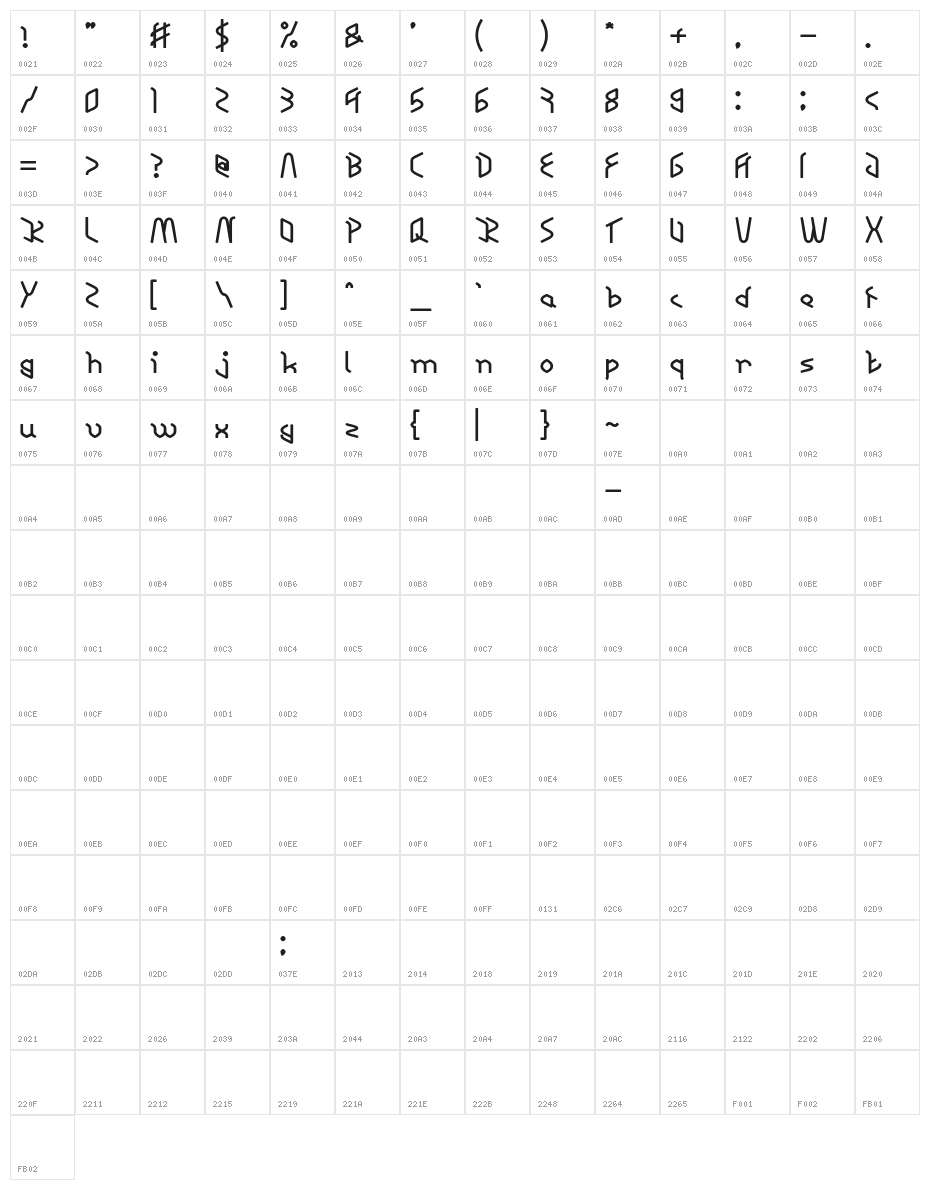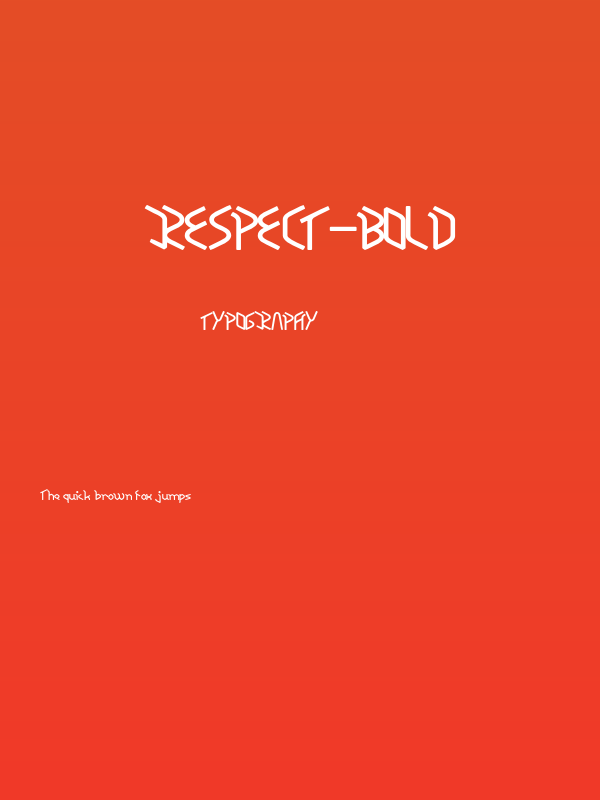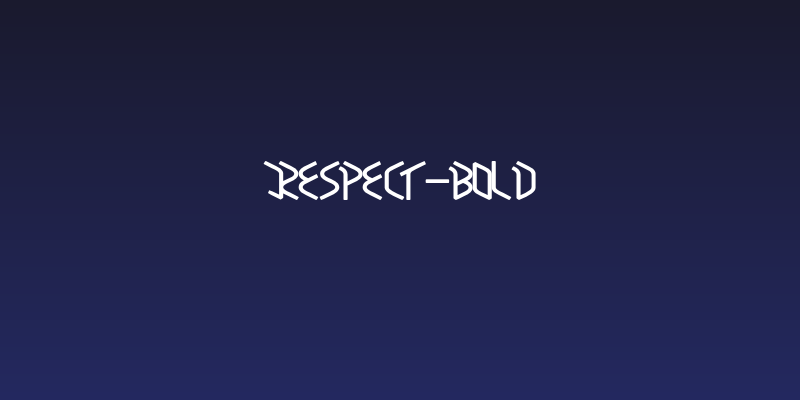
RESPECT-Bold Font
RESPECT-Bold Description
This font features a bold and geometric design with a distinctive angular style. The characters are formed with thick, consistent strokes that give it a strong and impactful appearance. The uppercase and lowercase letters maintain a uniform width, creating a cohesive look across the alphabet. The numerals and special characters follow the same design principles, ensuring visual harmony. The unique shape of each character adds a modern and edgy feel, making it suitable for projects that require a standout typeface.
| Proposed Projects | Ideal for branding, posters, and headlines that need a bold and modern touch. |